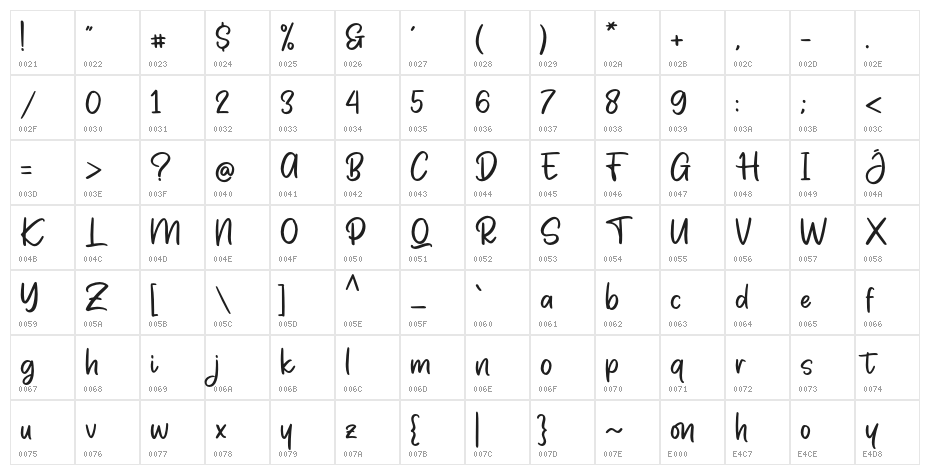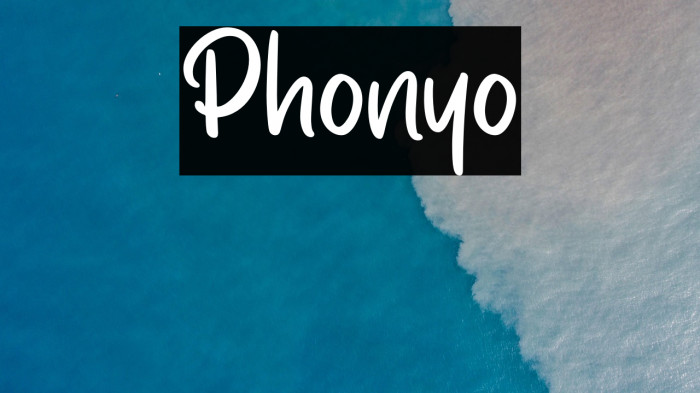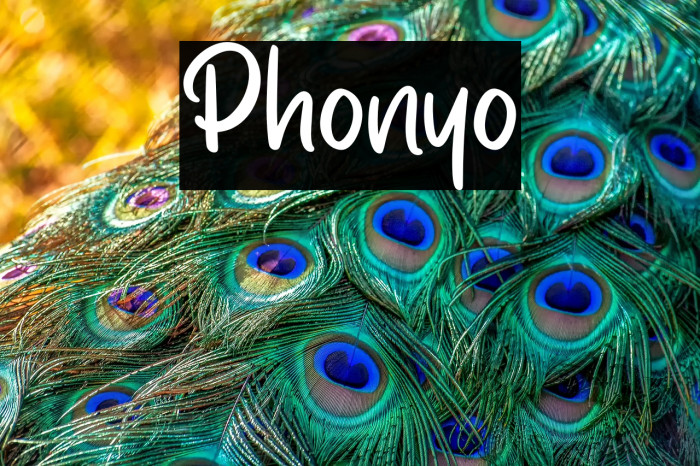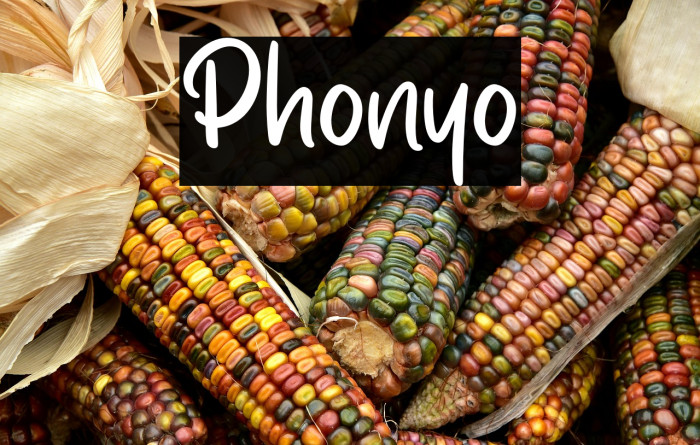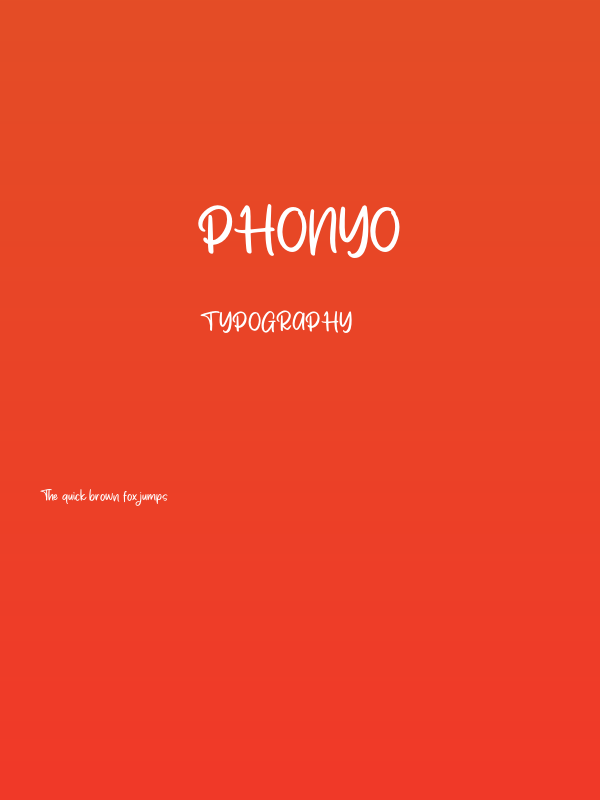
Phonyo Font
Phonyo Description
This playful and energetic font features a handwritten style with a casual and friendly appearance. The letters are slightly slanted, giving a dynamic and lively feel. The strokes are smooth and rounded, with a consistent thickness that maintains readability. The uppercase and lowercase letters are well-proportioned, and the numbers are clear and distinct. Special characters are creatively designed to match the overall aesthetic, making this font versatile for various applications.
| Use Case | Logos, Headlines, Informal Text |
| Proposed Projects | Ideal for greeting cards, children's books, playful branding, and social media graphics. |